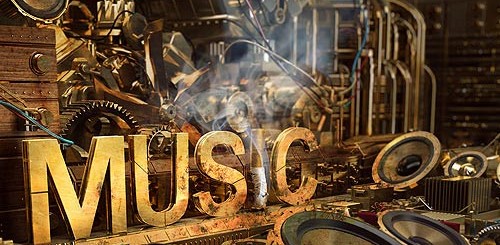
Best Grunge Free Fonts on the Web
There are millions of free fonts available on the web. However, grunge fonts deserve special attention for their unique appearance, which goes beyond the typical typeface design and reaches the levels, where fine art starts.
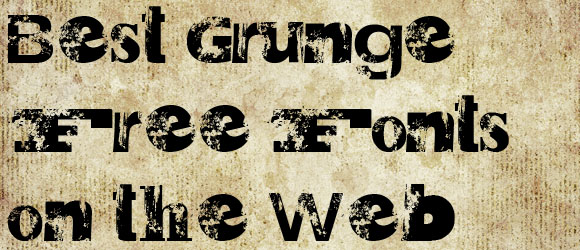
Grunge fonts with distorted lines, fancy glyphs arrangement and ornamentally-rich backgrounds possess magic power to amaze, astonish and surprise. Among the myriad of grunge fonts we have selected the most prominent and free typefaces, which are presented for you below. These free grunge fonts are capable of transforming any project into a masterpiece.
Saltpeter N Fungus Grunge Font
VTKS Bright Grunge Font
Dirtybag Bold trial Grunge Font
Skin & Bones Grunge Font
Urbana Grunge Font
Hawaii Lover Grunge Font
RawStreetWall Grunge Font
Hawaii Killer Grunge Font
Dirt2SoulStalker Grunge Font
Rosebud Antique Grunge Font
Hardcorium Grunge Font
VTKS Urban Time Bold Grunge Font
Conspiracy Grunge Font
Rusted Plastic Grunge Font
YouMurdererBB Grunge Font
BandungHardcoreGP Grunge Font
Vtks Blank Grunge Font
Vtks Desgaste Grunge Font
Easytrouble Grunge Font
Nightstalker-Trial Grunge Font